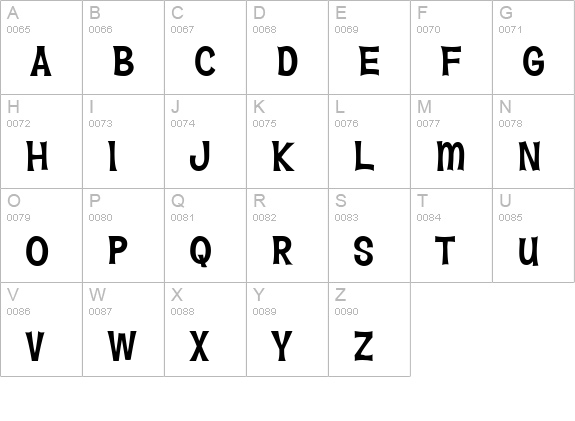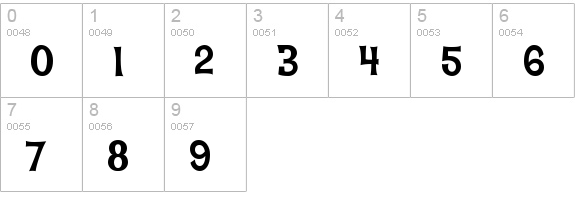
Hawaiian Aloha BTN Bold is a strong, high-contrast variant in the Hawaiian typeface family \xE2\x80\x94 well suited to headlines, attention-grabbing titles, and strong calls-to-action.
Introducing Hawaiian Aloha BTN Bold, a stunning font that embodies the spirit of the Hawaiian islands. This font exudes warmth, relaxation, and the vibrant energy that is synonymous with the Aloha spirit. With its bold and captivating presence, Hawaiian Aloha BTN Bold is perfect for adding a touch of tropical elegance to any design project. Featuring beautifully balanced curves and bold letterforms, this font is sure to make a statement. Whether you're crafting a logo, designing a poster, or creating eye-catching headlines, Hawaiian Aloha BTN Bold will effortlessly catch the attention of your audience. Its versatility allows it to be used in a wide range of creative projects, from branding and advertising to invitations and social media graphics. But what truly sets Hawaiian Aloha BTN Bold apart is that it is freely available to download at FontsMarket.com. Yes, you read that right - this exceptional font can be yours without any cost. FontsMarket.com is a trusted source for high-quality fonts, and now you have the opportunity to access this exquisite typeface without spending a dime. So why wait? Embrace the beauty of the Hawaiian Aloha BTN Bold font and infuse your designs with the essence of paradise. Download it for free at FontsMarket.com and elevate your creative endeavors to new heights. Let the tropical vibes of this font transport you to the breathtaking landscapes and the vibrant culture of Hawaii. Aloha!